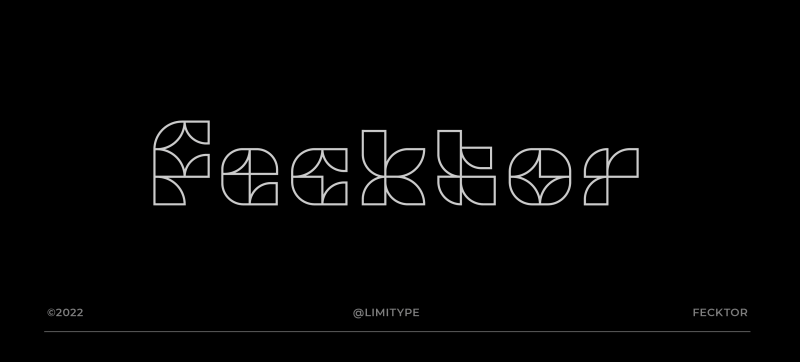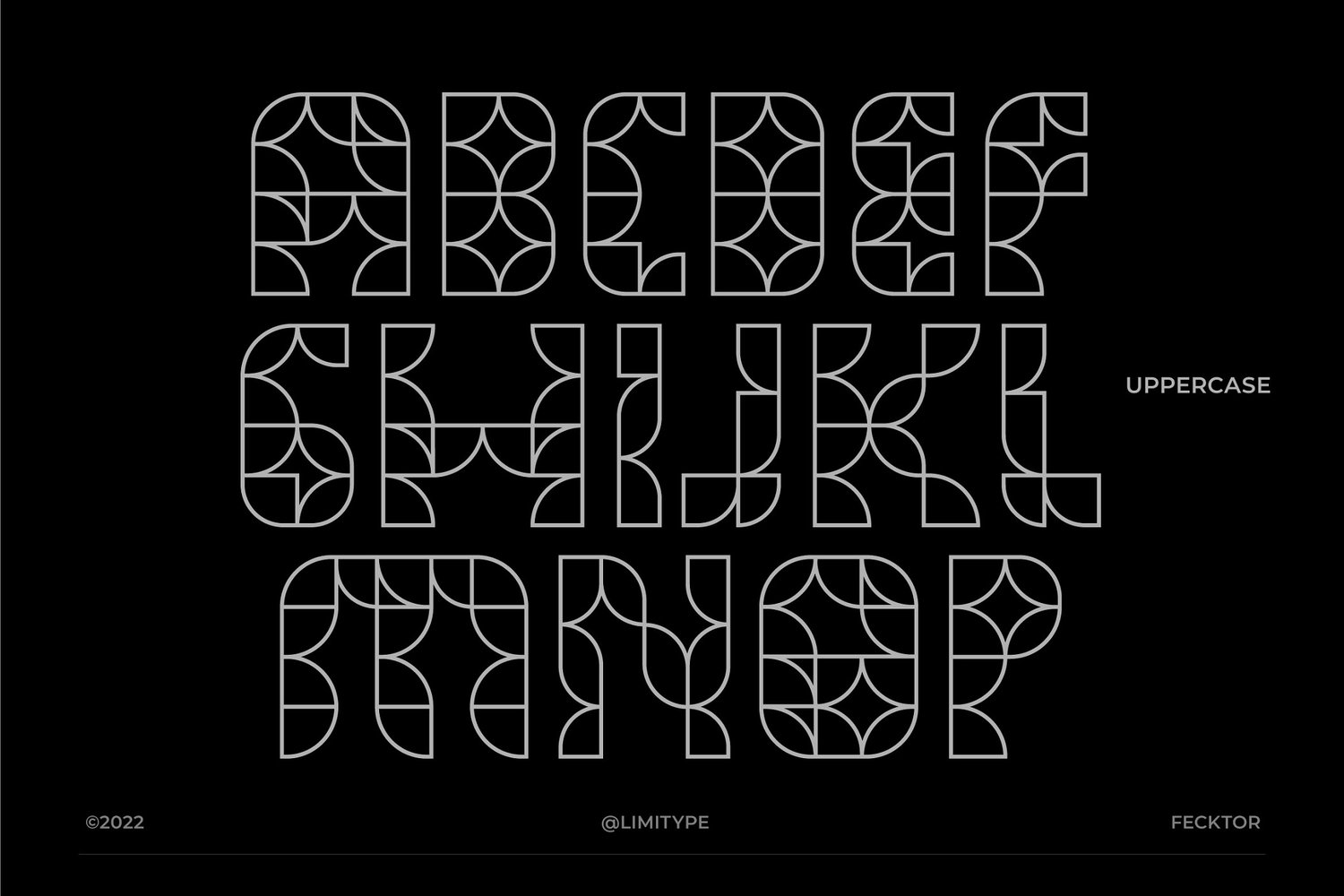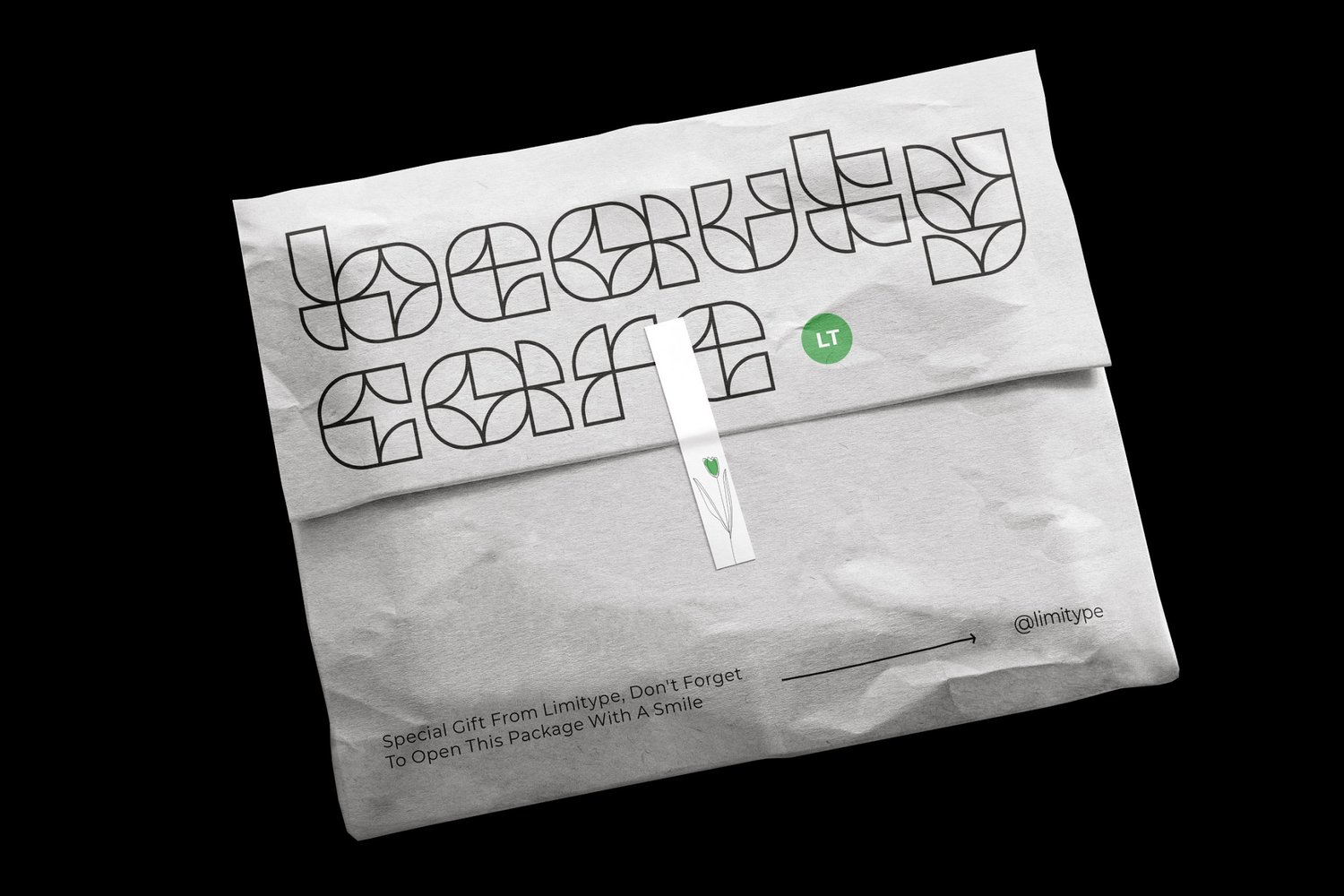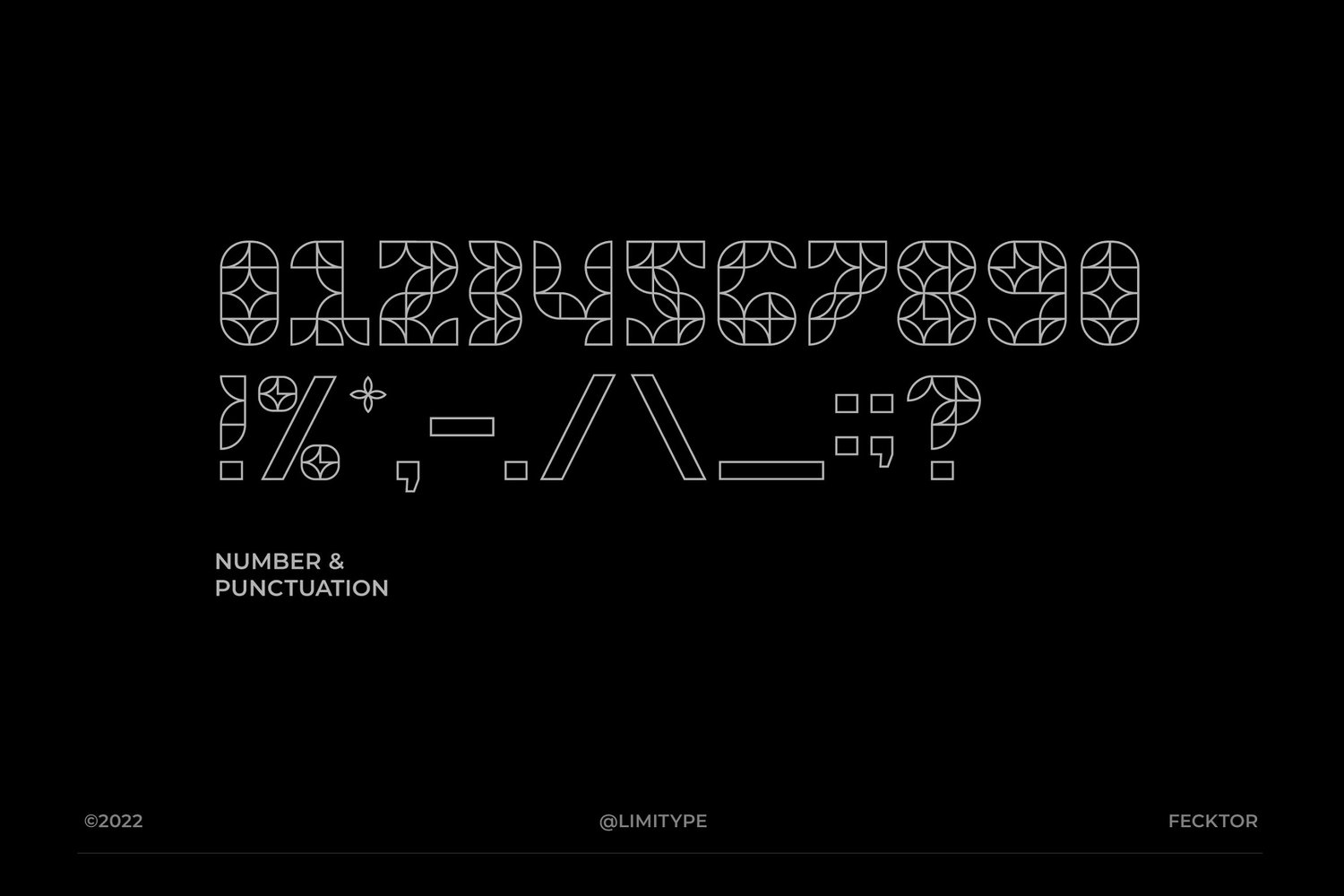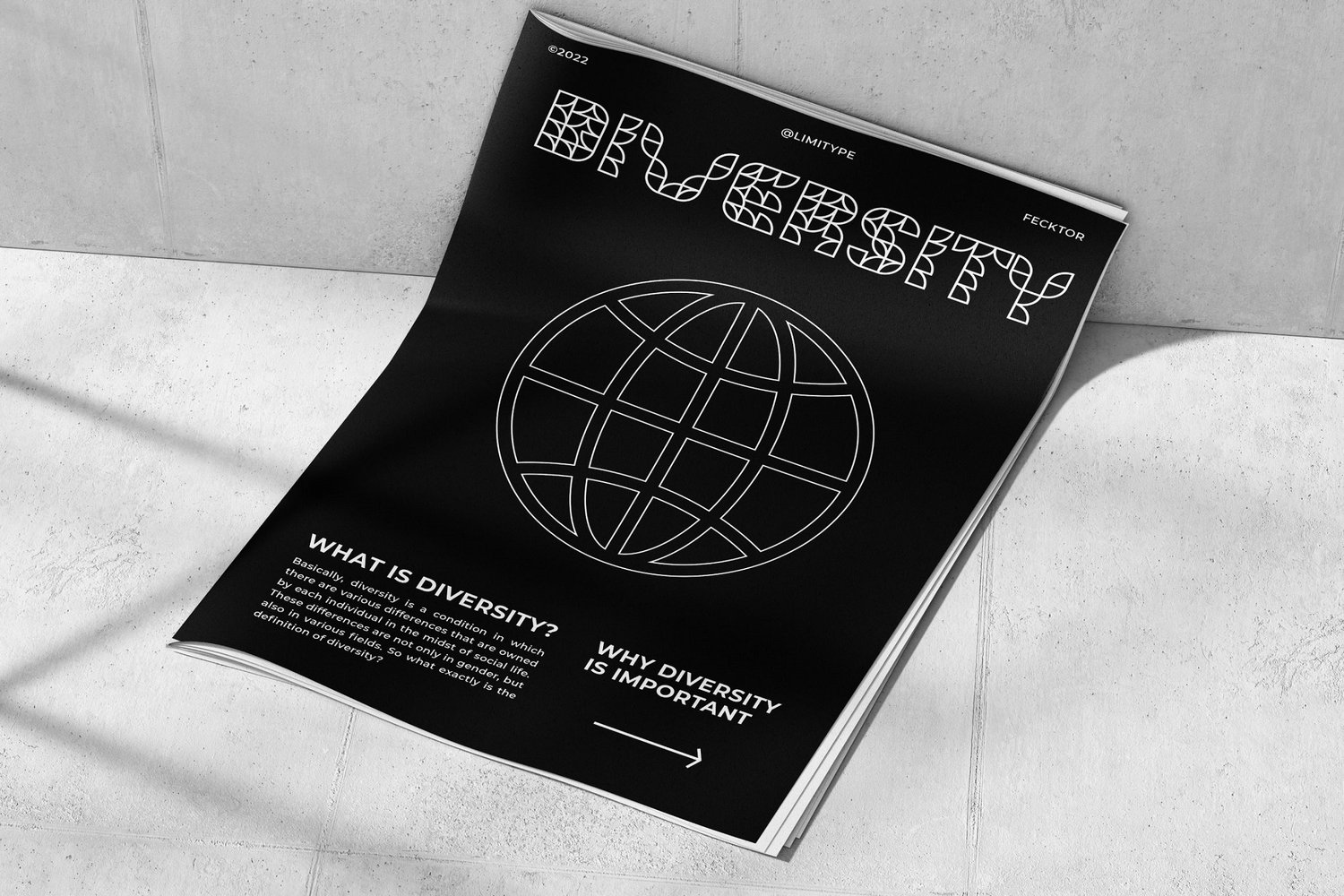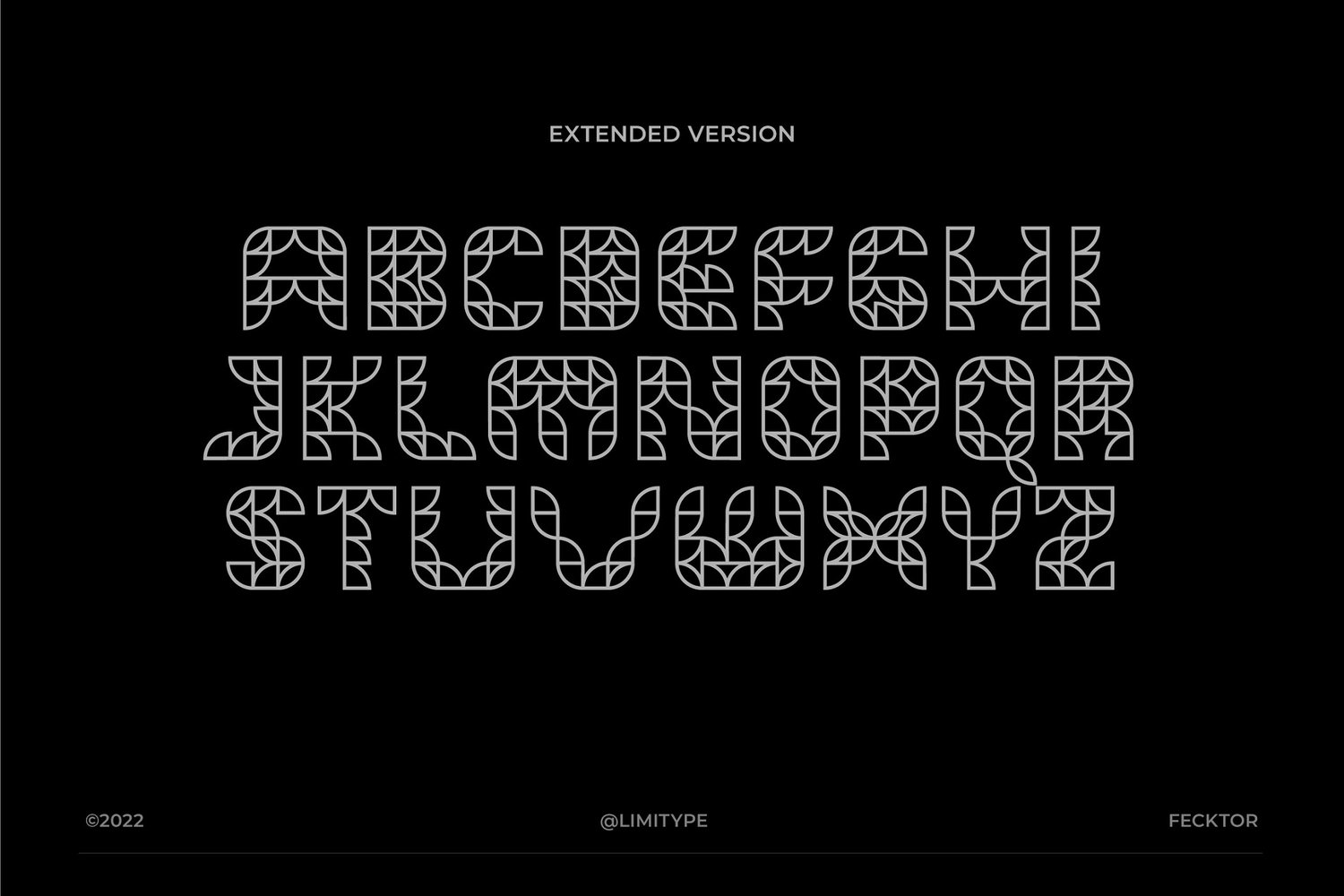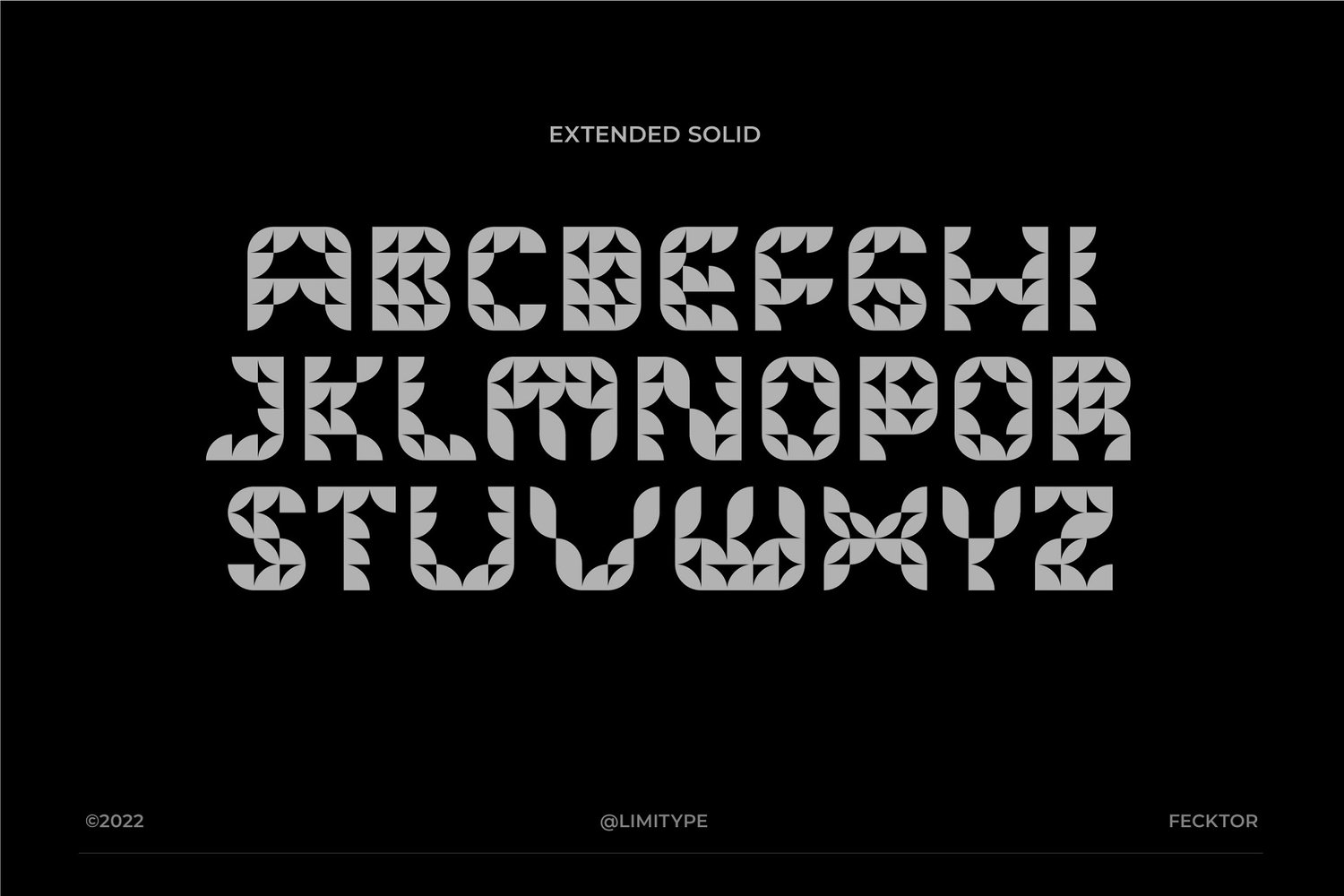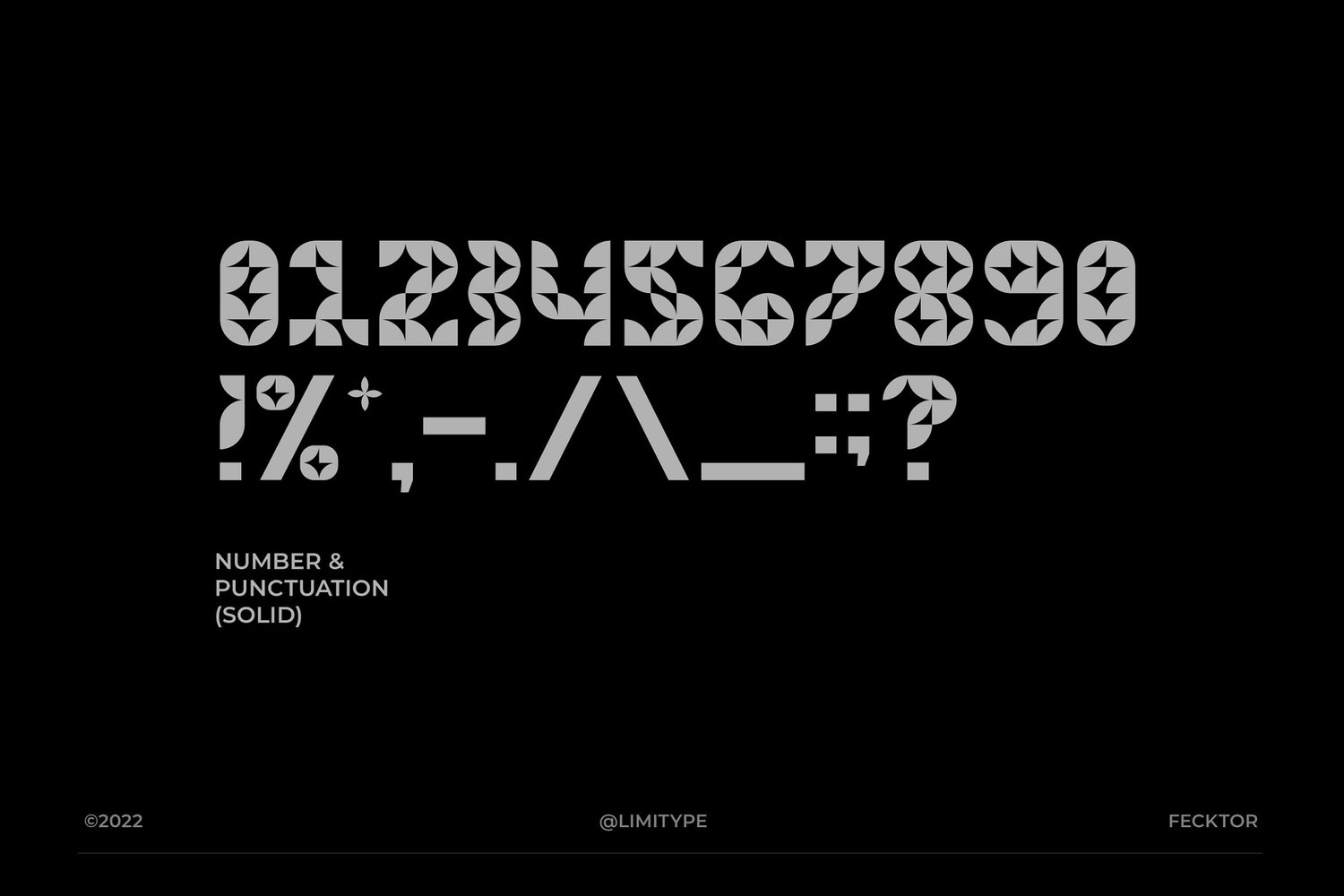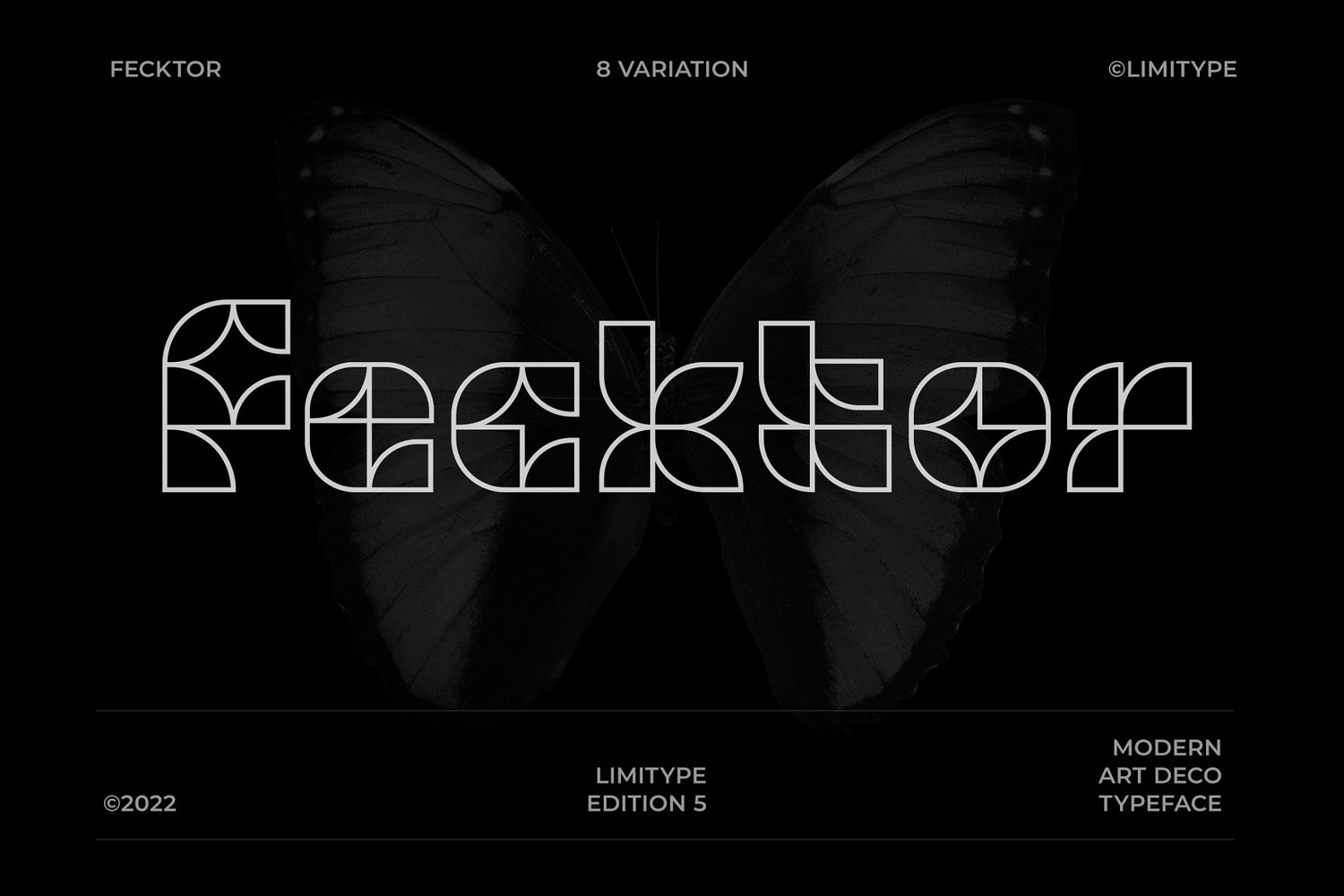
Fecktor - Modular Typeface
FECKTOR - MODULAR TYPEFACE
Fecktor is a decorative typeface made for display needs, headlines, logos etc. Made with minimalism inspired by the shape of butterfly wings combined with modular to produce a modern Art deco impression and style. Fecktor has 8 variations ( light, regular, bold, solid, extended light, extended regular, extended bold and extended solid ) equipped with uppercase, lowercase, numbers and some symbols